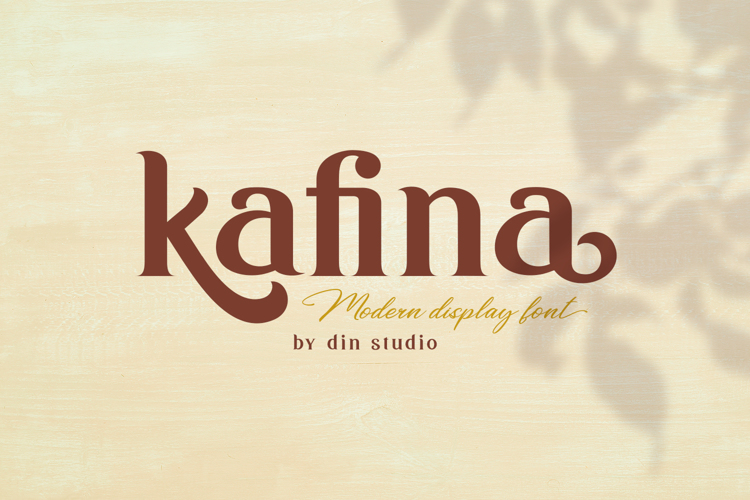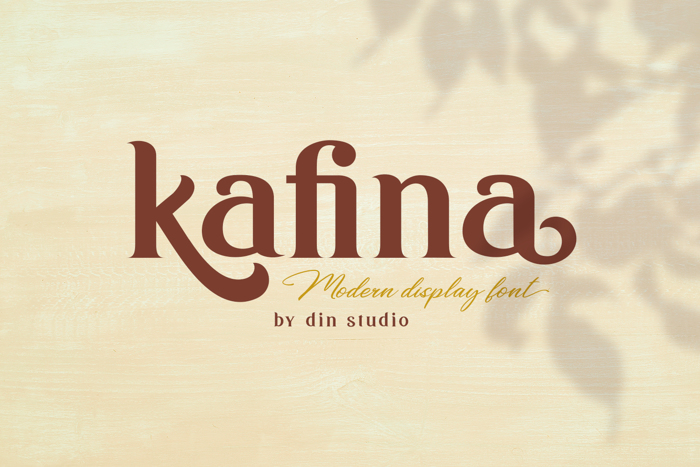
Kafina Font
Kafina is a beautiful display font, designed with a modern and bold style. It’s suitable for brandings, logos, social media campaigns, ads, and many other designs.
Features include:
• Alternates
• Ligatures
• Multilingual Supports
• PUA Encoded
• Numerals and Punctuations